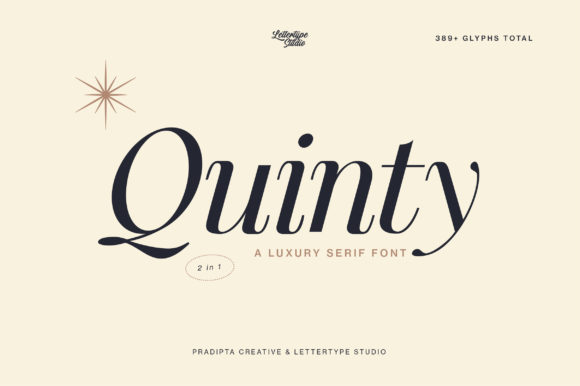
Discover Quinty: A Font Symphony of Elegance, Alluring Appeal, and Timeless Beauty
In a world saturated with visual clutter, your designs deserve a font that stands out, a font that captivates, a font that whispers elegance and sophistication. Quinty, a masterpiece from the creative genius of pradiptacreative, answers your quest for typographic excellence.
Quinty, a serif font family, is not just a collection of letters; it's an orchestra of visual artistry, a symphony of graceful lines and alluring curves. Its slim, elegant strokes evoke a sense of timeless beauty, reminiscent of classic literature and vintage design.
With Quinty, you'll unveil a world of creative possibilities. Its versatility knows no bounds, making it the perfect choice for magazine logos, branding, wedding invitations, book covers, posters, and so much more. Quinty's PUA encoding ensures seamless access to a treasure trove of glyphs and swashes, allowing you to unleash your creativity without limits.
As you craft your designs with Quinty, you'll experience a newfound joy in the art of typography. Its effortless flow will guide your fingers across the keyboard, transforming words into works of art. Quinty's ability to command attention yet blend harmoniously into your designs is a testament to its exceptional craftsmanship.
Quinty is more than just a font; it's an invitation to embark on a journey of creative exploration. Its timeless appeal transcends trends, ensuring that your designs will remain captivating for years to come.